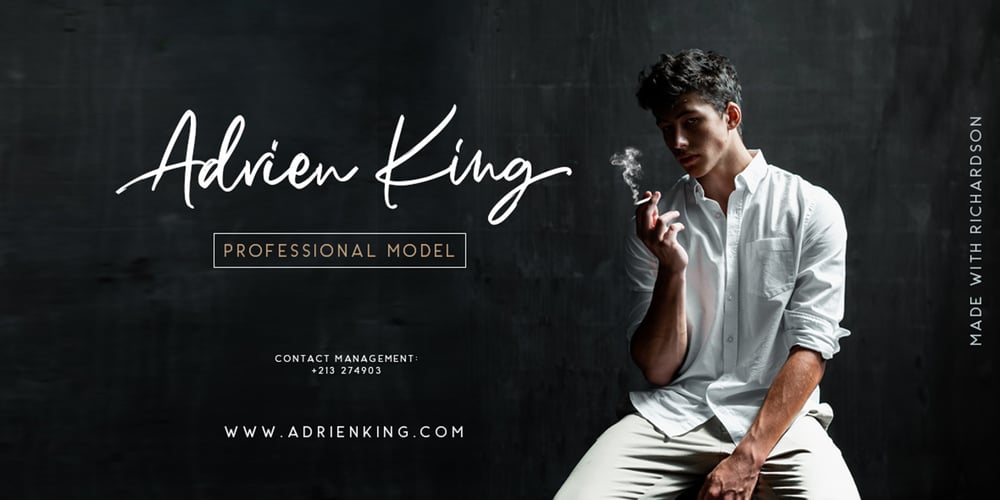
Richardson Script Font Family was designed by Sarid Ezra and published by Sarid Ezra. Richardson Script contains 1 styles and family package options. Richardson Script is a signature script with textured brush that contain stylistic alternate, underline, and a bunch of ligatures to create your own customized signature or logo design. Richardson is a signature font that you can use to make a logo for branding, beautiful fashion design, suitable for wedding invitations or handwritten quote. Also already PUA Encoded!